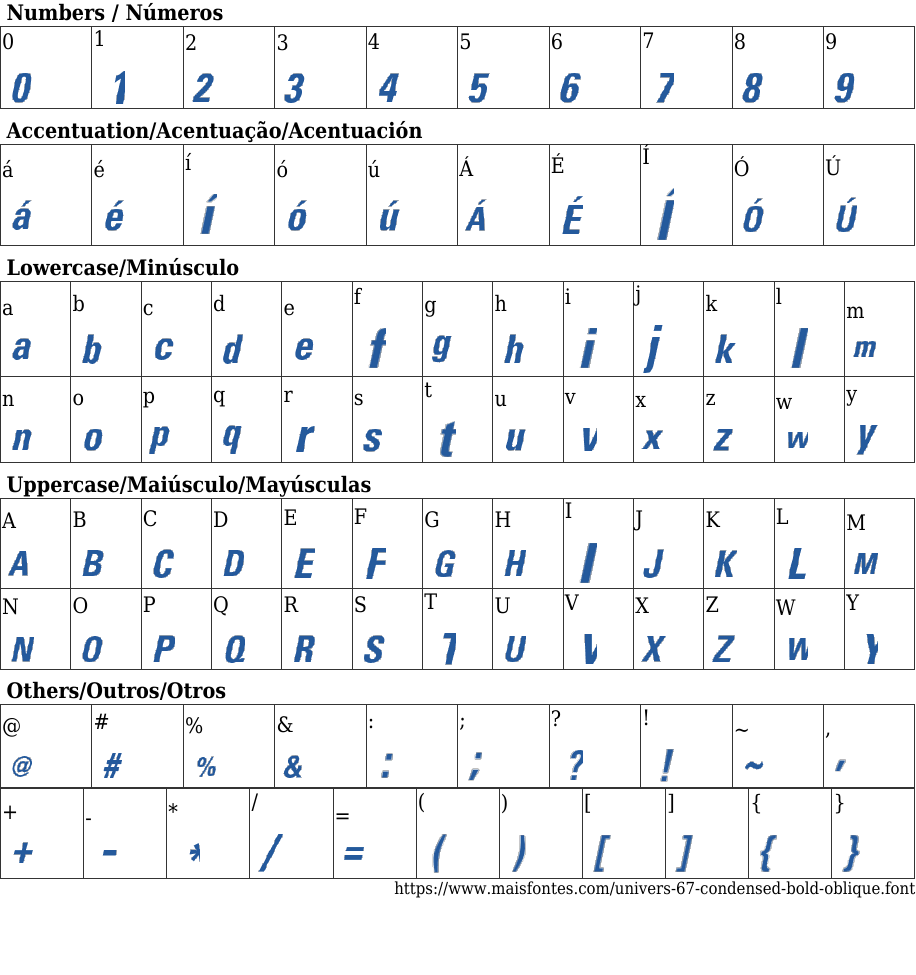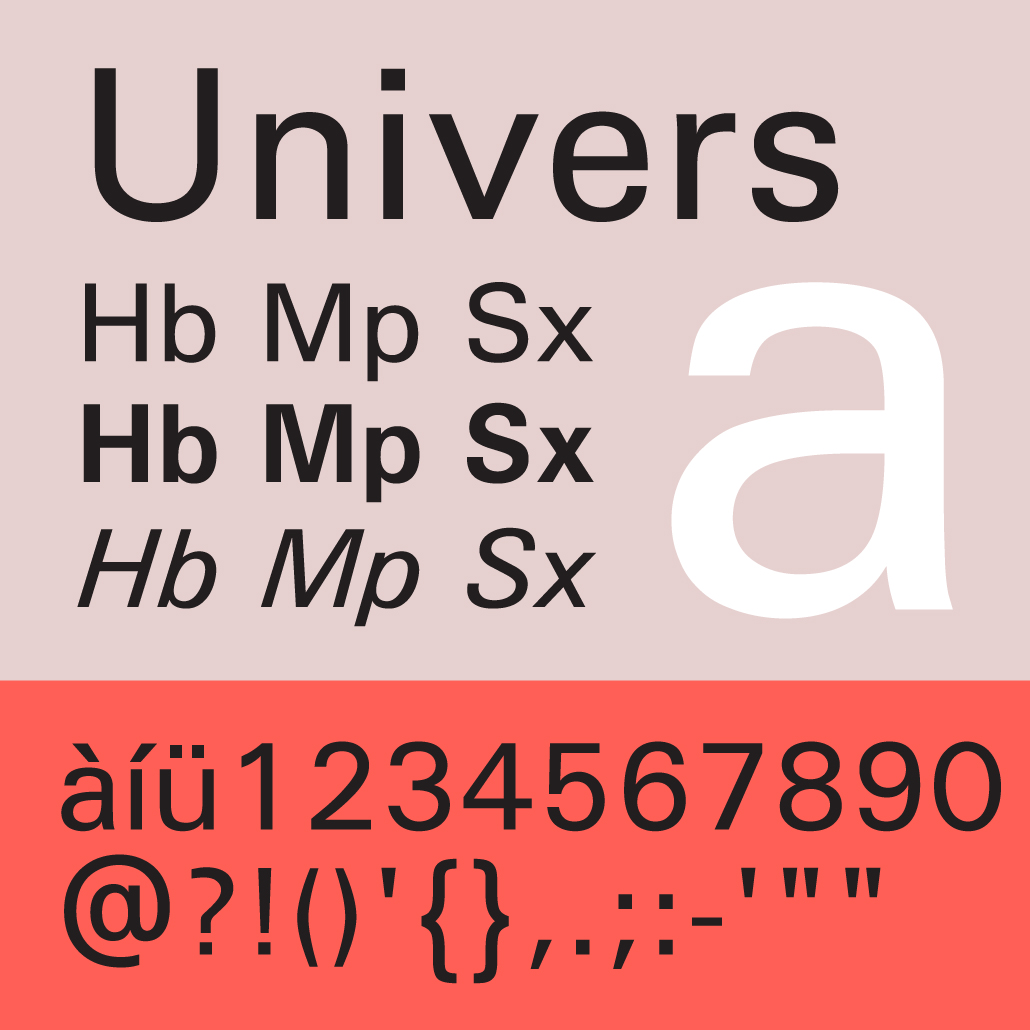
Univers 67 Font - Thousands of designers (famous or not) use the image font detection system to find a font or similar free fonts from an image. Is one of the greatest typographic achievements of the second half of the 20th century.
Is one of the greatest typographic achievements of the second half of the 20th century.